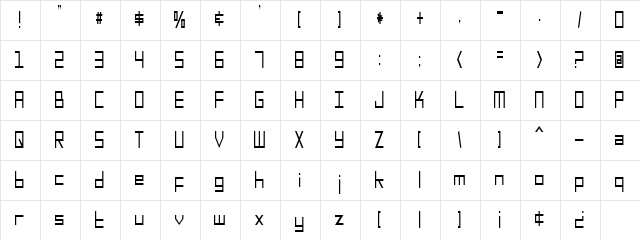
SF Square Head Condensed Regular
Design Context for SF Square Head Condensed Typeface
SF Square Head Condensed offers clean, dependable letterforms without strong stylistic allegiance, making it a practical choice for designers who need flexibility. The condensed width makes it efficient for tight spaces without sacrificing legibility.